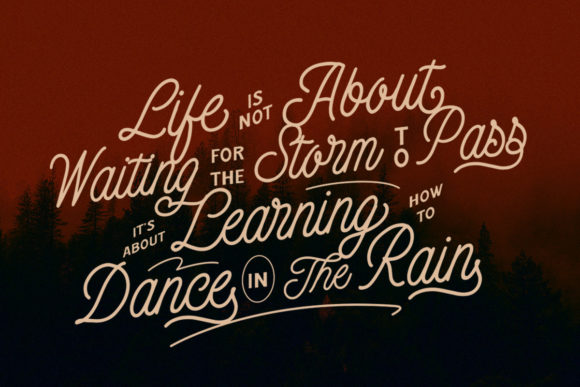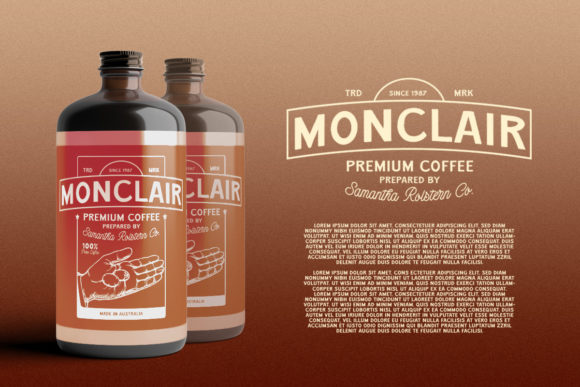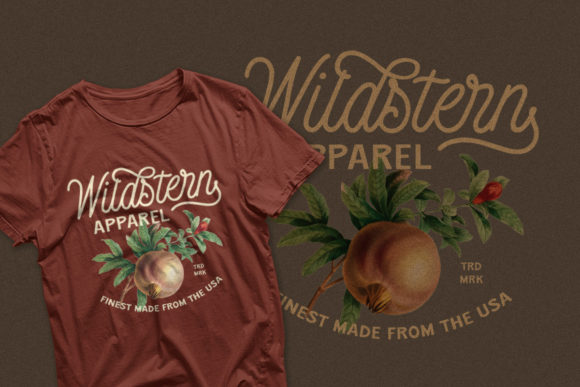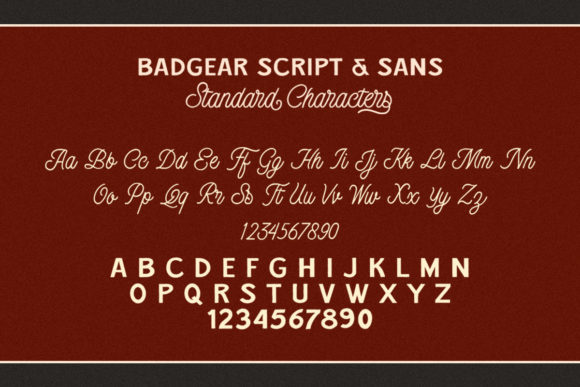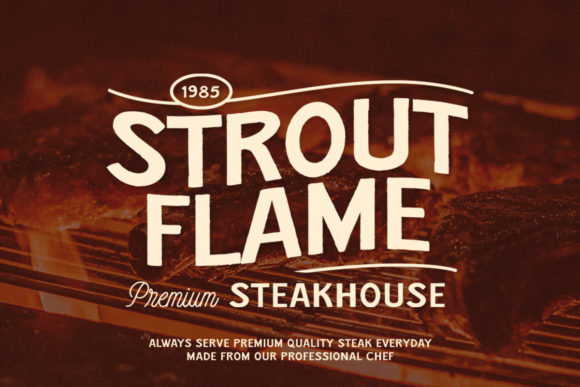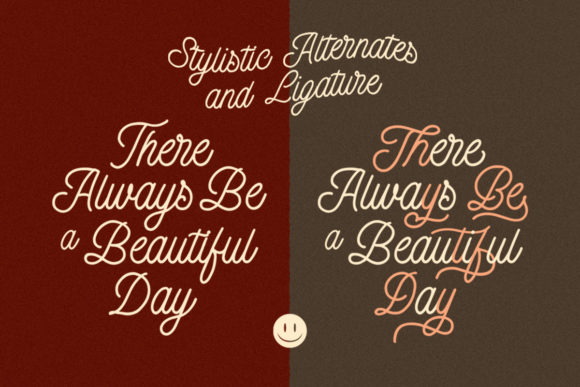
Introducing Badgear Font: Elevate Your Designs with a Touch of Vintage Elegance
In the world of design, typography plays a crucial role in conveying the message and aesthetic of a brand or project. Among the myriad of fonts available, finding the perfect one that combines beauty, balance, and a unique style can be a daunting task. However, if you’re looking for a font that embodies vintage charm with a modern twist, look no further than the Badgear Font. This stunning duo font, consisting of a sans serif and script font, is designed to add a touch of elegance and sophistication to your fashion branding or editorial designs.
The Essence of Badgear Font
Badgear Font is characterized by its smooth curves and well-balanced design, making it a beautiful addition to any project. The duo font set includes a sans serif font, which offers a clean and modern look, and a script font, which adds a touch of elegance and fluidity. This combination allows designers to create visually appealing and cohesive designs that stand out from the crowd.
Perfect for Fashion Branding
Fashion branding requires a font that exudes style, sophistication, and a sense of luxury. Badgear Font, with its vintage flair and modern sensibilities, is perfectly suited for fashion brands looking to make a statement. Whether you’re designing a logo, packaging, or marketing materials, Badgear Font can help elevate your brand’s visual identity and make it more memorable.
Ideal for Editorial Designs
Editorial designs, such as magazines, blogs, and newspapers, also benefit greatly from the use of high-quality typography. Badgear Font, with its readability and aesthetic appeal, is an excellent choice for editorial projects. The font’s vintage style adds a unique touch to any editorial content, making it more engaging and visually appealing to readers.
Key Features of Badgear Font
- Vintage Style with a Modern Twist: Badgear Font combines the charm of vintage typography with modern design principles, making it versatile and timeless.
- Duo Font Set: Includes both a sans serif and script font, offering flexibility and variety in your designs.
- Smooth Curves: The font’s smooth curves contribute to its elegant and sophisticated appearance.
- Well-Balanced Design: Ensures that your designs look harmonious and aesthetically pleasing.
- Perfect for Fashion and Editorial Projects: Specifically designed to meet the needs of fashion branding and editorial designs.
- Mix and Match: Combine the sans serif and script fonts to create visually interesting and dynamic designs.
- Experiment with Colors: While the font itself is stunning, experimenting with different colors can further enhance its impact.
- Pay Attention to Spacing: Ensure that your text is easily readable by paying attention to spacing and kerning.